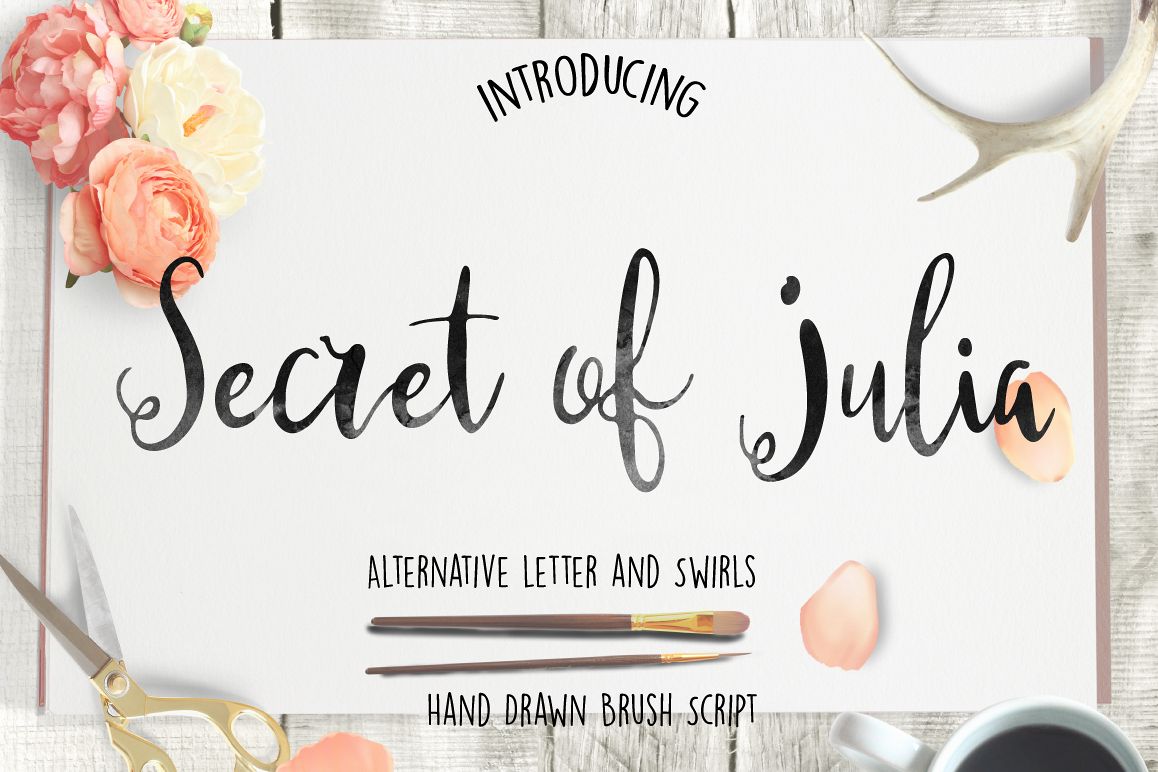
Secret of Julia
It's hand lettered and modern script font with swirls and alternative letters.
This fonts are perfect for wedding invitation or your blog. Also with their help, you can create a logo or postcard. Or just use for your small business, book covers, stationery, marketing, posters.